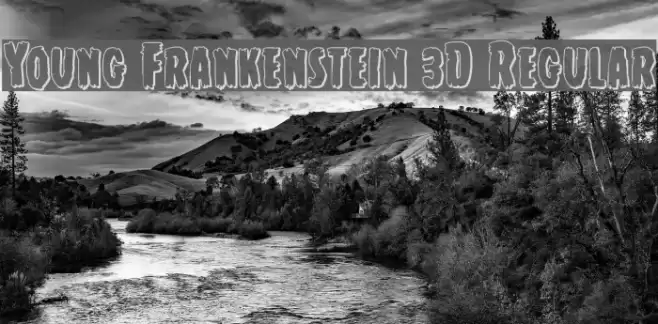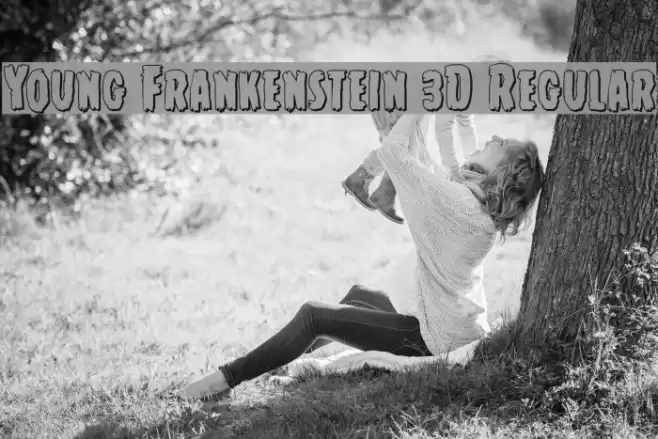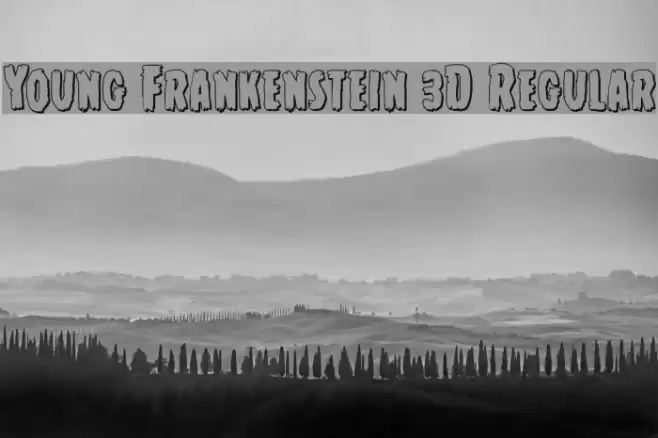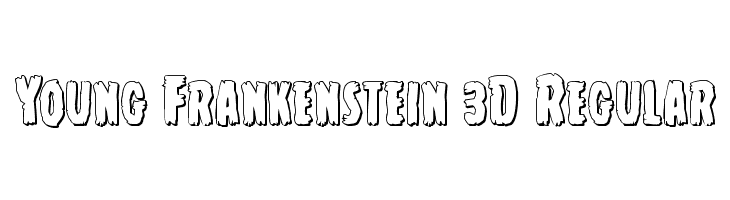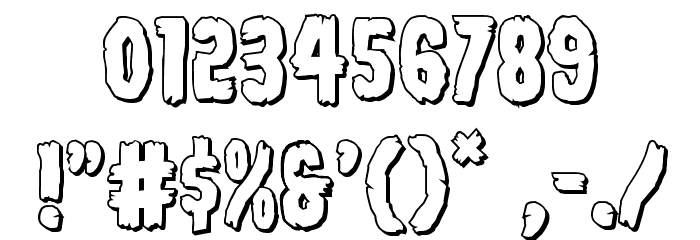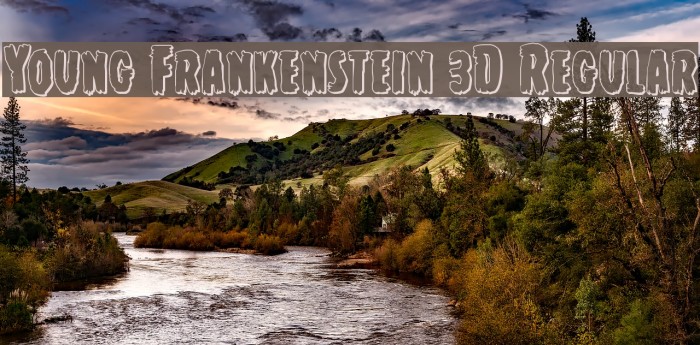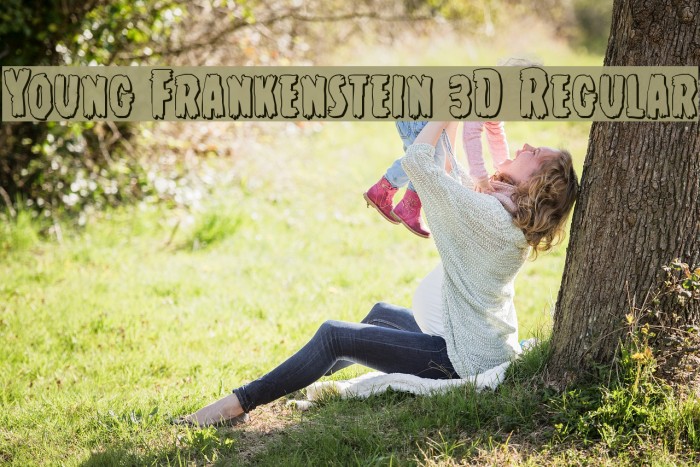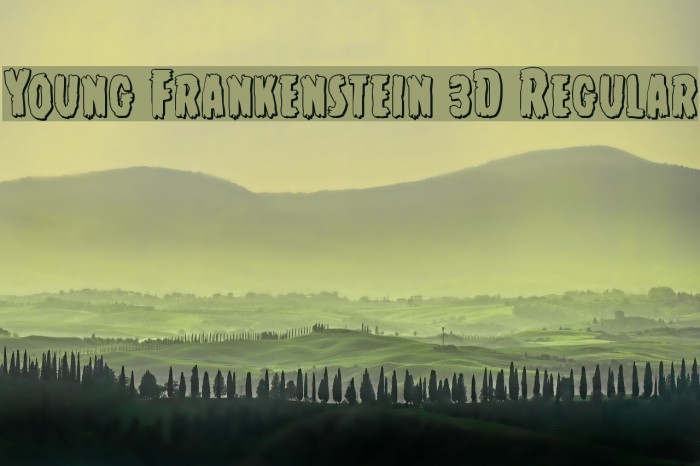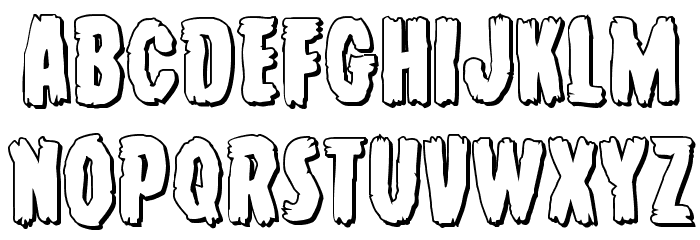
Young Frankenstein 3D Regular Font
Young Frankenstein 3D Regular Description
This font features a bold, playful design with a three-dimensional effect that gives it a unique, eye-catching appearance. The letters are chunky and have a slightly irregular outline, adding a whimsical and dynamic feel. The style is reminiscent of classic horror or comic book themes, making it ideal for projects that require a touch of fun and drama. The uppercase and lowercase letters maintain a consistent style, while the numbers and special characters complement the overall aesthetic. The font's boldness and distinct character make it suitable for standout headlines and creative designs.
A bold, playful 3D font with a whimsical, comic book style from Uncategorized fonts.
- Proposed Projects: Ideal for Halloween-themed designs, comic book titles, posters, and playful branding.